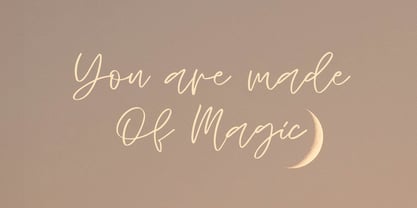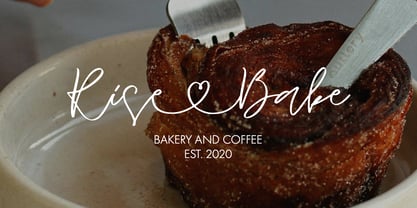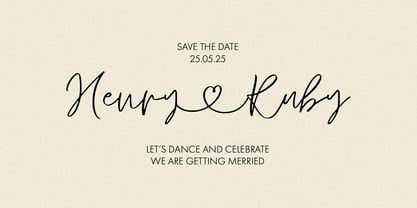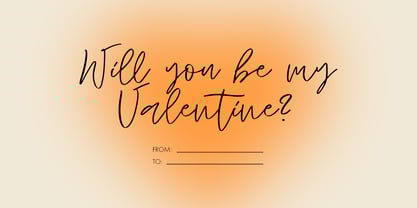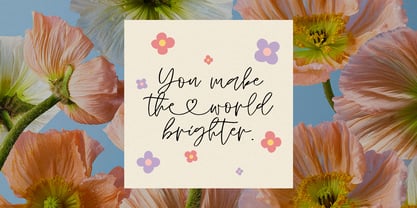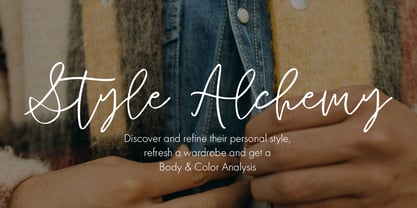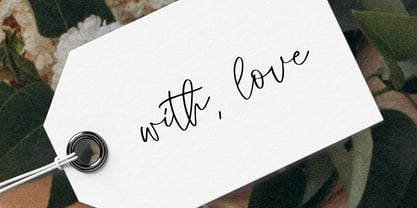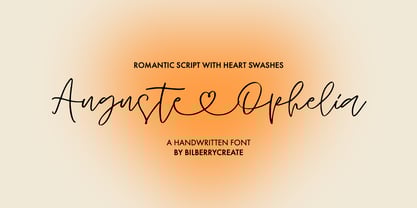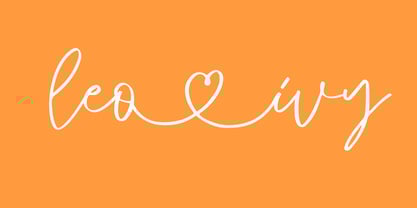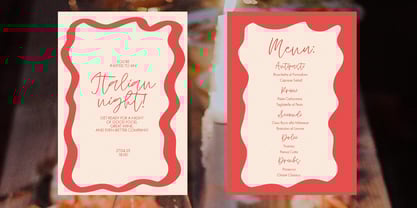
Auguste&Ophelia
The Auguste&Ophelia Font Family was designed by Daria Cherniackova and published by Bilberry Create. Auguste&Ophelia contains 1 styles. More about this family
Auguste&Ophelia - romantic handwritten font!